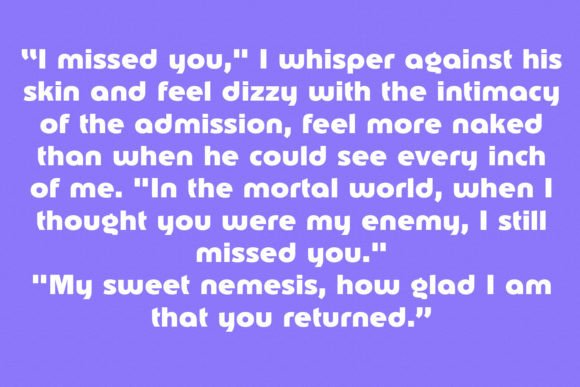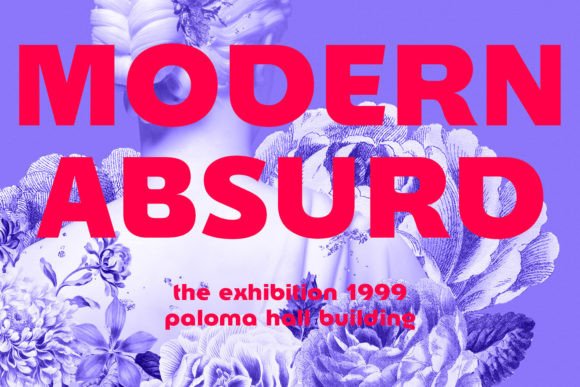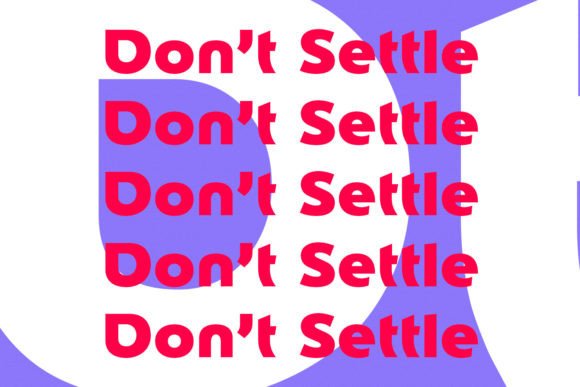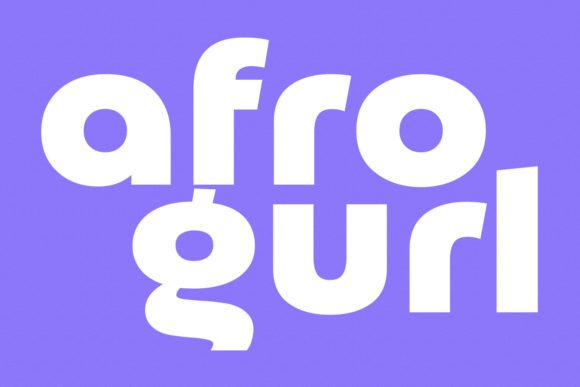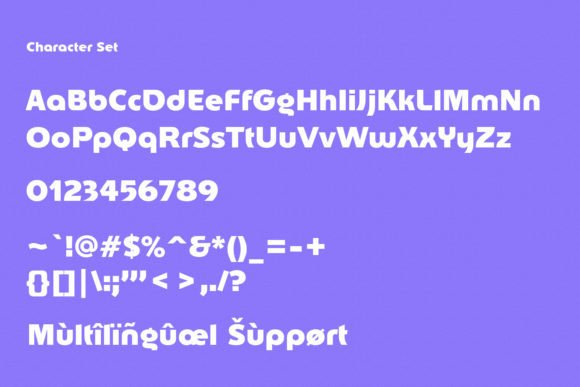
Introducing Gally Font: A Modern Decorative Sans Display Font
Are you looking for a font that can add a touch of modernity and fun to your designs? Look no further than Gally Font! This modern decorative sans display font is perfect for designers and crafters who want to create stunning works that stand out from the crowd. With its bold stroke, fun character, and ligatures and alternates, Gally Font is sure to inspire your creativity.
What Makes Gally Font Special?
Gally Font is a unique and versatile font that offers a range of features that make it perfect for various design projects. Here are some of the key features that make Gally Font special:
- Modern and Decorative: Gally Font has a modern and decorative look that is perfect for designs that require a touch of elegance and sophistication.
- Bold Stroke: The font features a bold stroke that adds a sense of confidence and strength to your designs.
- Fun Character: Gally Font has a fun and playful character that is perfect for designs that require a touch of personality and whimsy.
- Ligatures and Alternates: The font features ligatures and alternates that allow you to add an extra creative touch to your designs.
- Multilingual Support: Gally Font supports over 100 languages, making it perfect for designers who work with clients from around the world.
Use Cases for Gally Font
Gally Font is a versatile font that can be used for a range of design projects. Here are some use cases where Gally Font excels:
- Logo Design: Gally Font is perfect for logo design, thanks to its bold and modern look.
- Social Media: The font is great for social media graphics, as it can help you create eye-catching and engaging content.
- Movie Titles: Gally Font is perfect for movie titles, thanks to its bold and decorative look.
- Books Titles: The font is great for book titles, as it can add a touch of elegance and sophistication to your designs.
- Short and Long Text: Gally Font is suitable for both short and long text, making it perfect for designers who need to create content for various mediums.
Pairing Gally Font with Other Fonts
Gally Font can be paired with other fonts to create a unique and visually appealing design. Here are some font pairing suggestions:
- Script Fonts: Pair Gally Font with a script font to create a beautiful contrast between the bold and modern look of Gally Font and the elegant and cursive look of the script font.
- Serif Fonts: Pair Gally Font with a serif font to create a interesting contrast between the modern and decorative look of Gally Font and the classic and traditional look of the serif font.
Tips for Using Gally Font
Here are some tips for using Gally Font:
- Use it as a Display Font: Gally Font is perfect for display purposes, such as titles, headings, and logos.
- Experiment with Ligatures and Alternates: Take advantage of the ligatures and alternates in Gally Font to add an extra creative touch to your designs.
- Pair it with Other Fonts: Don’t be afraid to pair Gally Font with other fonts to create a unique and visually appealing design.
In conclusion, Gally Font is a modern decorative sans display font that is perfect for designers and crafters who want to create stunning works. With its bold stroke, fun character, and ligatures and alternates, Gally Font is sure to inspire your creativity. Its multilingual support and versatility make it perfect for a range of design projects, from logo design to social media graphics. So why not give Gally Font a try and see what amazing designs you can create?